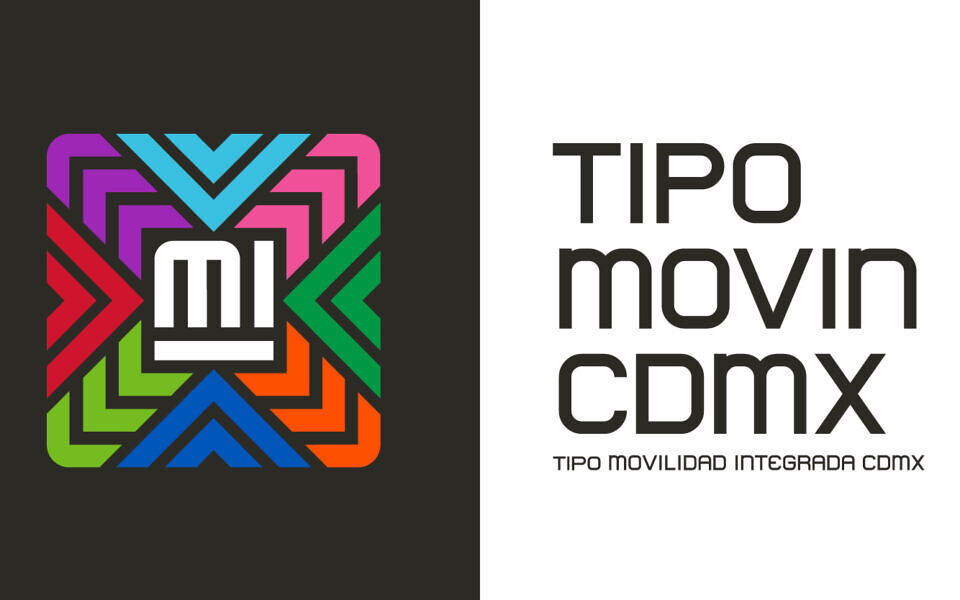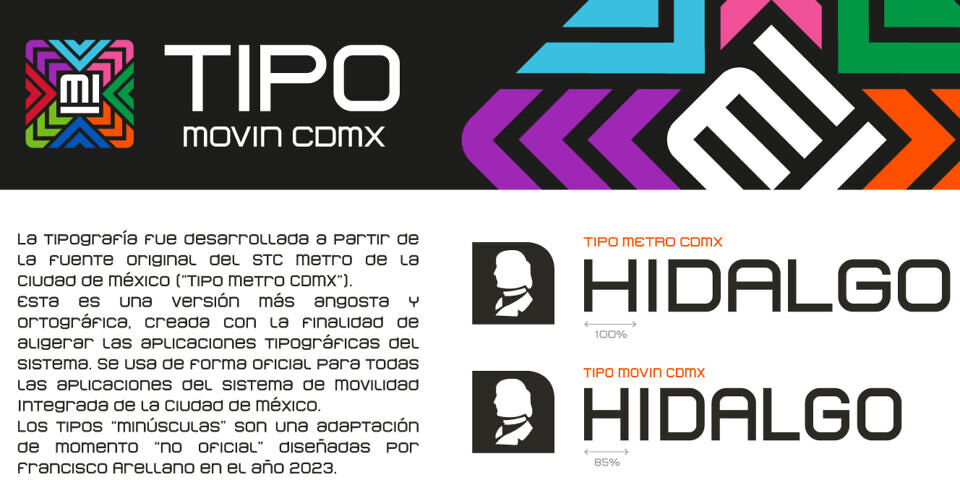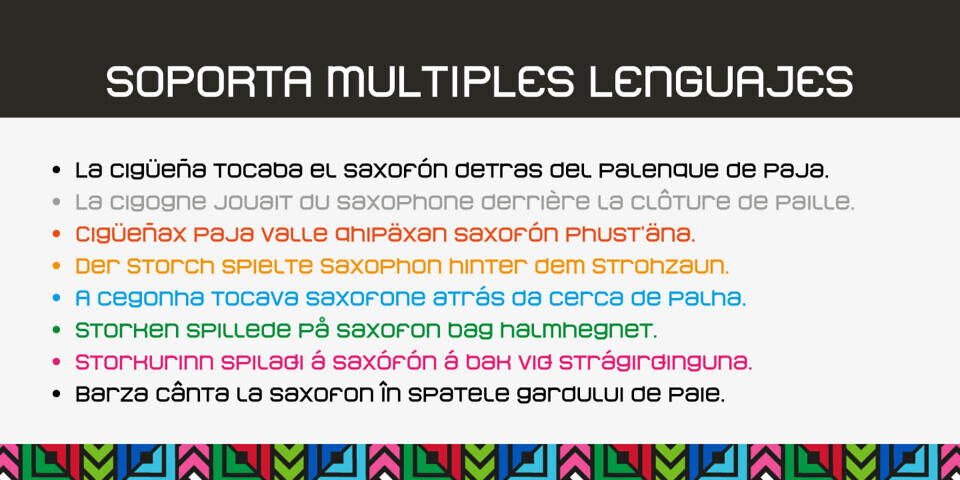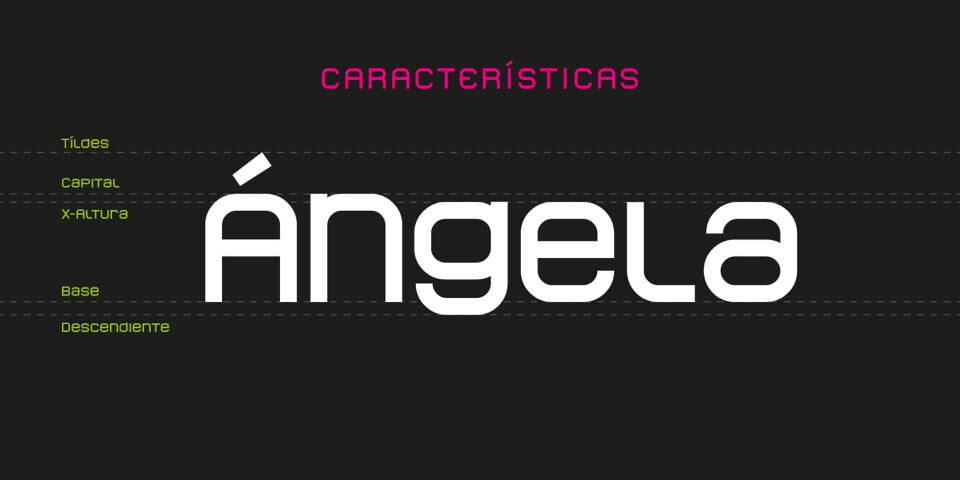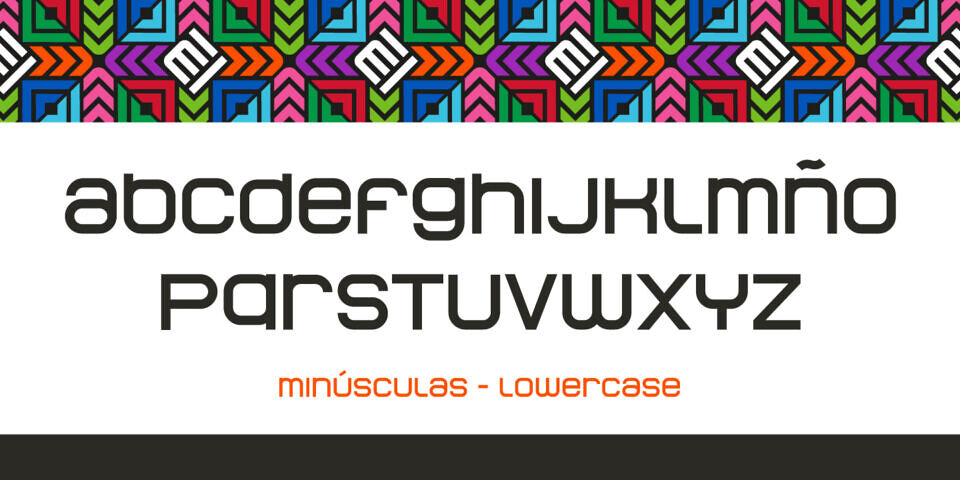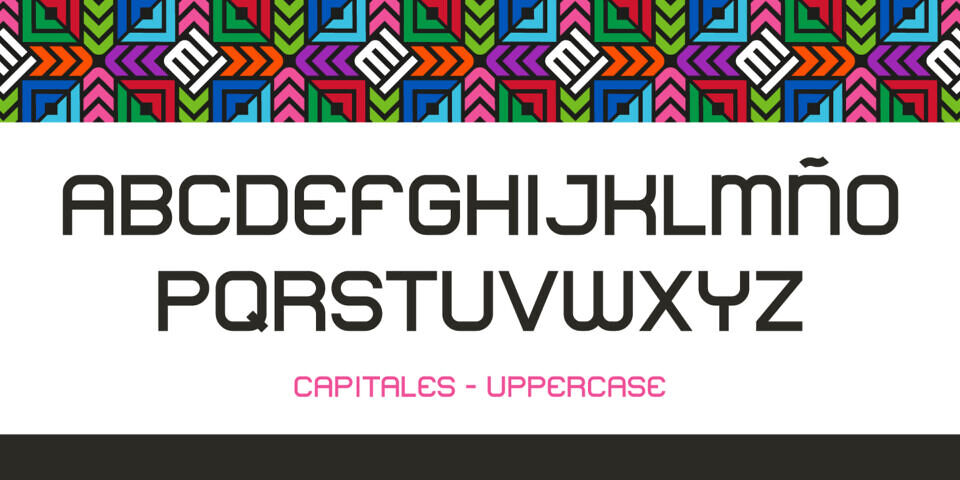
Designed by Francisco Arellano and Lance Wyman, Tipo Movin CDMX is a display sans font family published by Ixipcalli.
The version proposed by SEMOVI (Secretary of Mobility) is a narrower and more orthographic style, created with the purpose of lightening the typographic applications of the system. It is officially used in all the applications of the Integrated Mobility system of Mexico City (Metrobus, Cablebus, Trolebus, RTP [Red de Transporte de Pasajeros]). The creator of the typeface is Lance Wyman.
In this edition, the lowercase types are an “unofficial” adaptation for the Tipo Movin CDMX, enriching the typography to a visual style of highs and lows, so the base design is dispensed with as my own work to emphasize the lowercase types exclusively, In addition, some accentuation characters have been added, extending their use to other languages. The types are a new proposal by Ixipcalli.